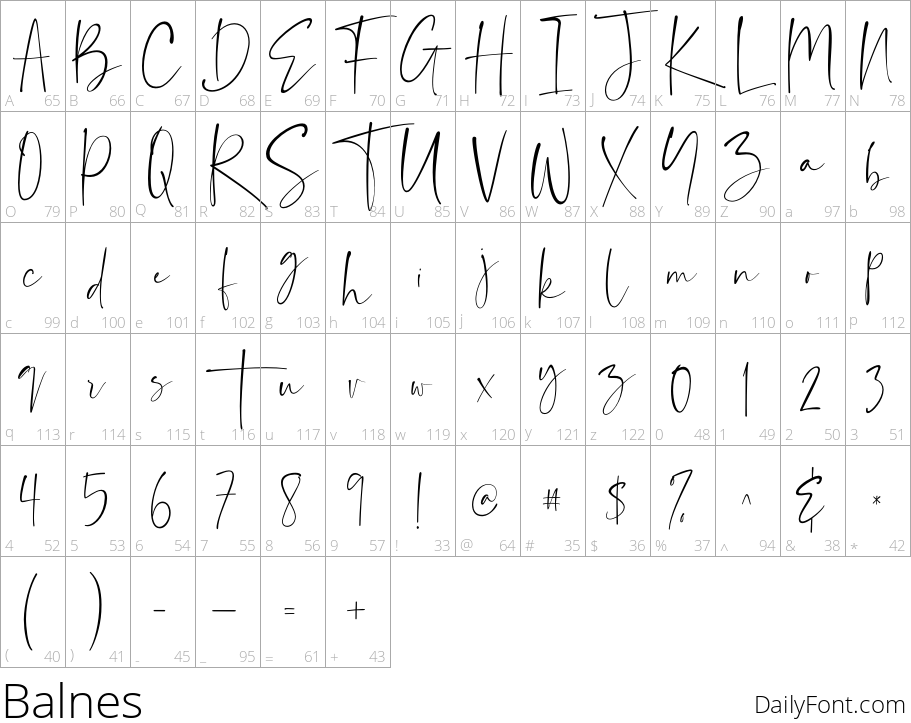
Balnes
Looking for a unique and sophisticated script font with a touch of edginess? Look no further than a font similar to Balnes. This stunning typeface boasts a refined elegance, perfect for adding a hint of luxury and sophistication to your designs.
Characterized by bold and expressive letterforms, this font is sure to make a statement. Its raw authenticity gives it a unique charm that's hard to find in more traditional script fonts. Whether you're looking to add some personality to a blog post, create eye-catching headlines, or bring a touch of whimsy to your branding, this font has got you covered.
With its bold and flowing lines, this font is perfect for creating visual interest and drawing attention to important text. Its refined nature also makes it suitable for formal documents, such as invitations, certificates, and reports. Additionally, its authenticity gives it an air of approachability and friendliness, making it perfect for use in social media posts, blog articles, or any other context where you want to convey a sense of approachability.
If you're looking for a font that's sure to make your designs stand out while still maintaining a level of sophistication and refinement, look no further than this stunning script font.